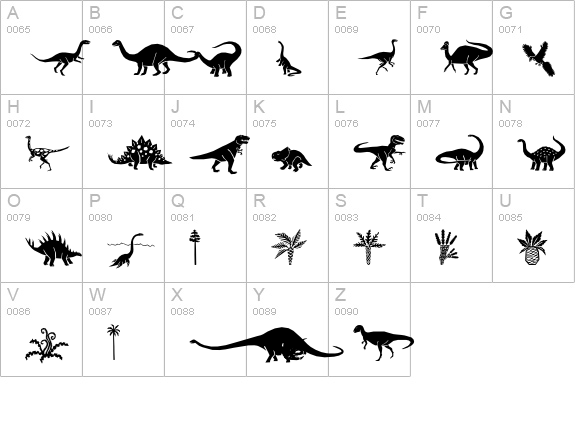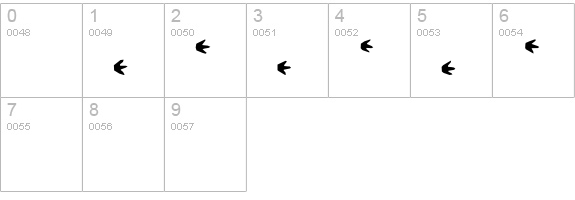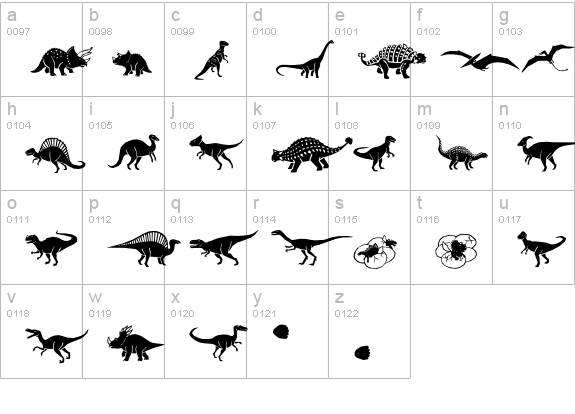
AcmeDinosaurs Font Details
Introducing AcmeDinosaurs font, a whimsical and playful typeface inspired by the prehistoric era. This font features unique dinosaur-themed characters that are sure to bring a fun and adventurous touch to your designs. Whether you're creating posters, invitations, or branding materials, AcmeDinosaurs font is perfect for adding a touch of creativity and originality. Best of all, AcmeDinosaurs font is available for free download exclusively at FontsMarket.com. Don't miss out on the opportunity to add this charming and eye-catching font to your collection. Download AcmeDinosaurs font today and let your imagination run wild with endless possibilities for your projects!